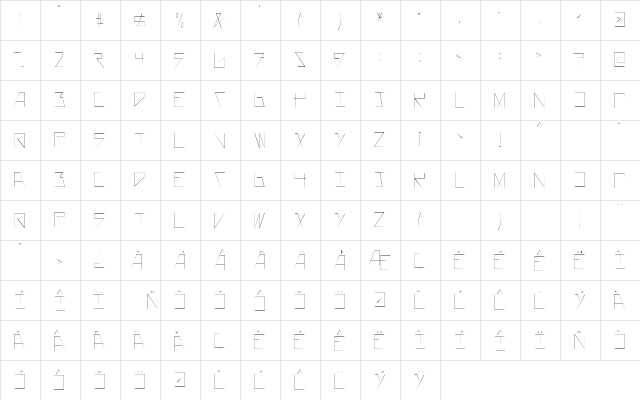
AsteriskThinLaser Regular Font Preview
AsteriskThinLaser Regular
AsteriskThinLaser Regular Font Details
| Foundry | Xerographer Fonts |
| Designer | Max Infeld Xerographer Fonts |
Design Context for AsteriskThinLaser Typeface
AsteriskThinLaser offers clean, dependable letterforms without strong stylistic allegiance, making it a practical choice for designers who need flexibility. Its slender proportions lend an understated elegance to any composition.